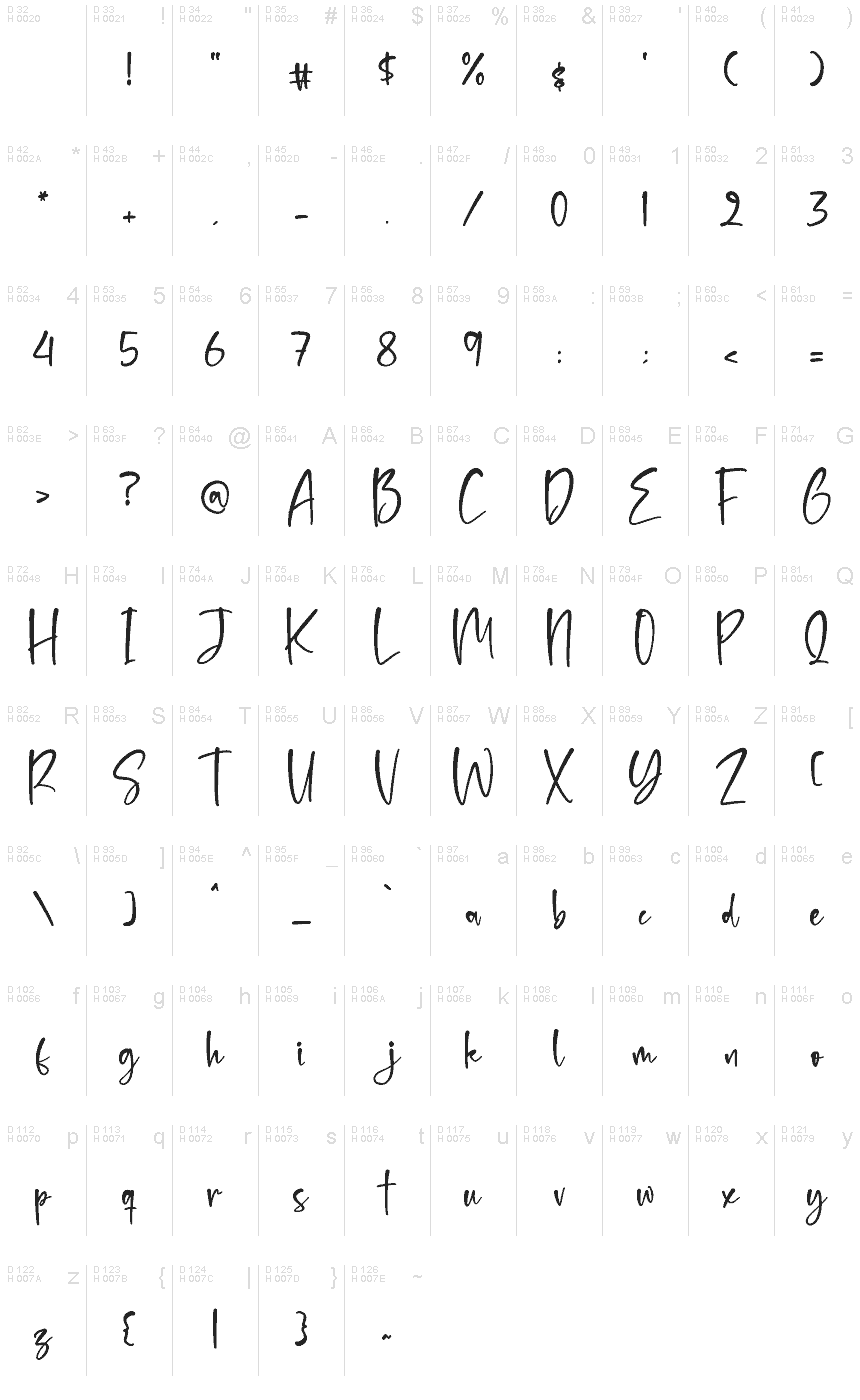
Benttoinas
Benttoinas font by Letterena Studios delivers a handwritten appearance characterized by organic flow and expressive character. The casual elegance it offers highlights its artistic flair as letter loops and curved shapes provide an unmissable feature. It looks close to being created using thin professional markers on paper and then turned into fonts.
An artistic expression of handwriting free font like Benttoinas remains useful for many projects like logotypes, posters, greeting card headings, book cover titles, signage, branding collaterals designs, digital publications covers or contents, magazine cover titles, brochures’ printed text sections or title displays on websites.